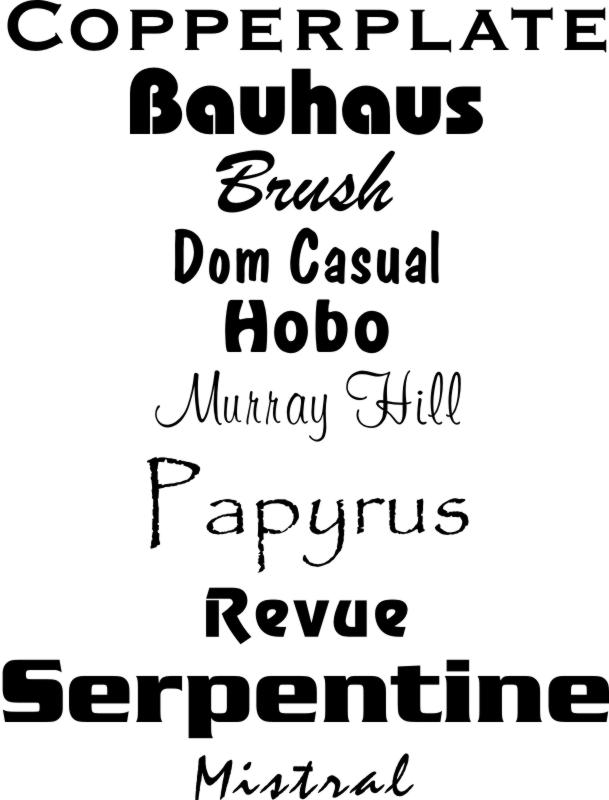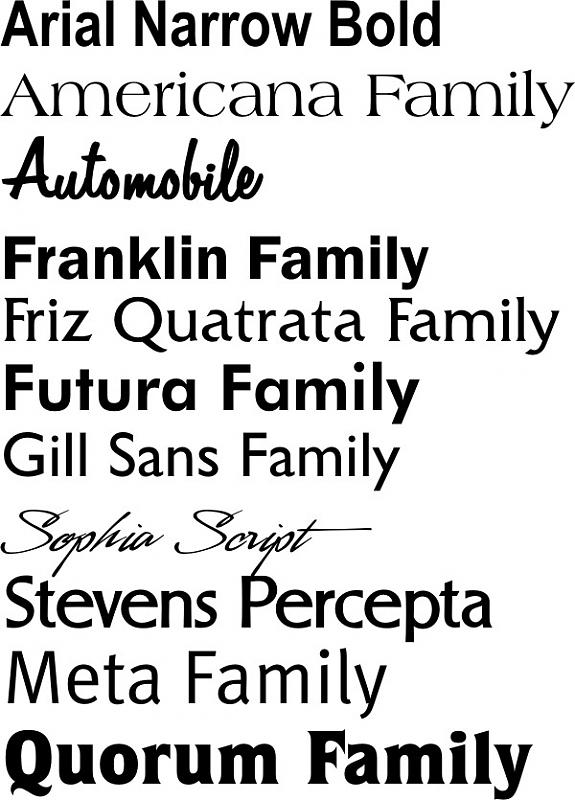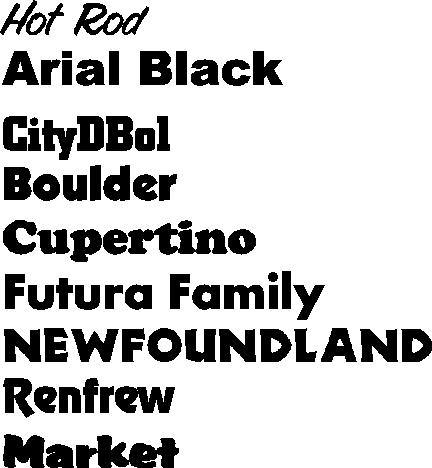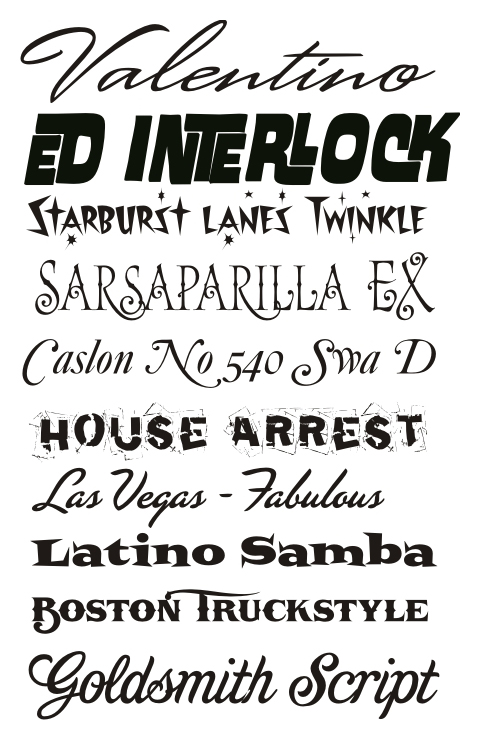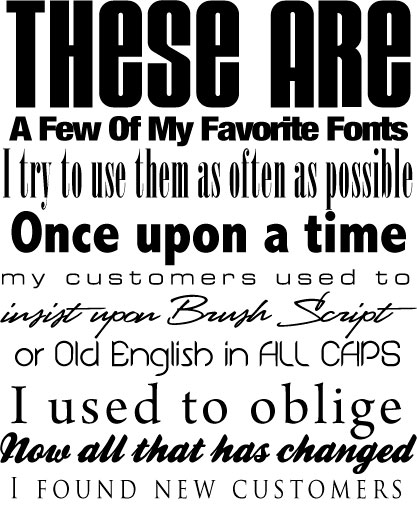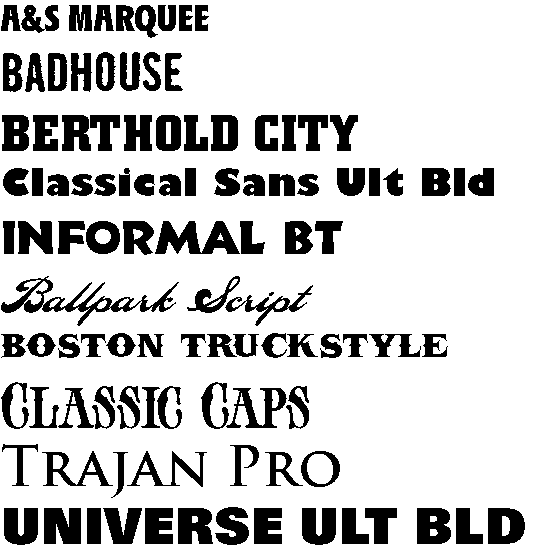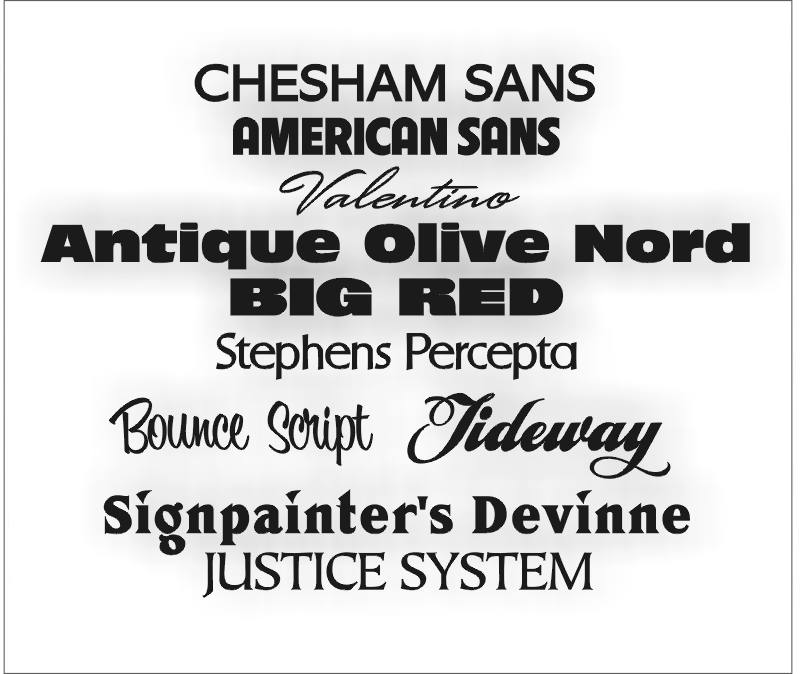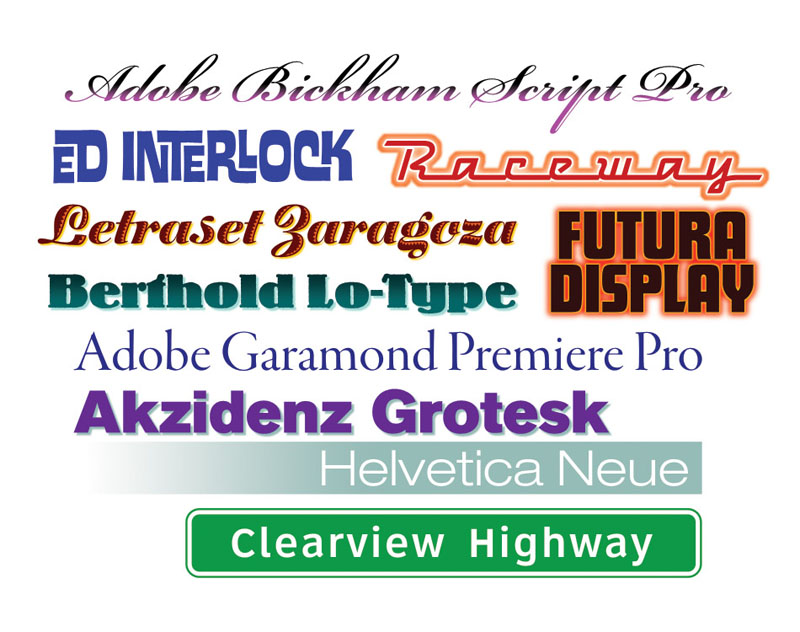
Your Top-Ten Fonts?...
Here's a handful of mine. Hopefully my choices don't reflect my inexperience :p
Unfondled, unedited, unkerned and straight from the old GA.
Here are a few of my faves that are not mentioned
I JUST CANNOT DO IT! For ten days now I've tried to come up with just 10 top favorite fonts. Its only a little easier to find a font or two that fall OUT of favor. I'm a certified and registered font freak. Every project is unique, especially after I have thoroughly massaged, fondled and sometimes down right molested a font into submission. To me, MY FONT LIBRARY IS MY HAREM!
Ok Rex..dont get your serifs twisted in a knot...
Thanks to those who posted their choices in thumbnail.
I finally get to see Jill's faves...
A lot of alternate names for fonts..ie: College = Princeton.
And then there IS the factor of OUR faves vs. CLIENT faves..who will win????
The fonts I regard as favorites tend to change quite frequently. Some are fonts I have used frequently for many years while others get used and disregarded. I've seen plenty of fonts I've really liked but then never had a project come up where their use would be appropriate.
The attached JPEG lists a set of 10 that I like quite a bit. There's others not on there (such as the Multiple Master version of Penumbra) that I adore.
Those are some darn nice fonts Bobby!
(I remember back in my art school days, I'd look at the Letraset catalog for hours!)
Yes! and in all 50 states I might add. The foundries have my picture on a clip-board hanging on the wall. I currently have to wear a "Valentino" ankle monitor device with a direct link to the Font Police.
Those are some darn nice fonts Bobby!
Thanks, Jill -or maybe the thanks should be forwarded to the font designers. I just wish they didn't cost so much money. ClearviewHwy was especially painful to the wallet. Another new highway font, FF Mt, being adapted on German roadways is being offered for free via the Font Font website. It's a pretty unusual typeface.
I've thought on this for some time and have come to the conclusion that no one is doing themselves a service by playing. For me typefaces exist on a continuum, from those to which I just naturally gravitate to those which I wouldn't use at gunpoint. And a whole hell of a lot of faces in between.
To say "Here's my top ten faces.." just naturally leads to the question "For what?" What might appear on such a list would vary wildly with just what we might be doing.
On the other hand, it is possible to list the bottom ten faces. Those that if I chose to use one you could notify the media that hell has frozen over. These are mainstream faces, some of which might have been put on top ten lists in this very thread, not obscure dreck. They come in at least a couple of flavors, from just plain butt ugly to trite.
Here's ten of my bottom of the barrel faces. Today anyway, the list is subject to change without notice. New faces get added but seldom do any get removed.
Most of those are on the bottom of my barrel too, Bob.
I was thinking about posting the 10 least favorite fonts but I never had time.
You covered it nicely for me!
Unfortunately those are the public's ten most wanted!
My other most unfavorite is a calligraphic font called "White" I see it alll the time and it is truly puke-worthy.